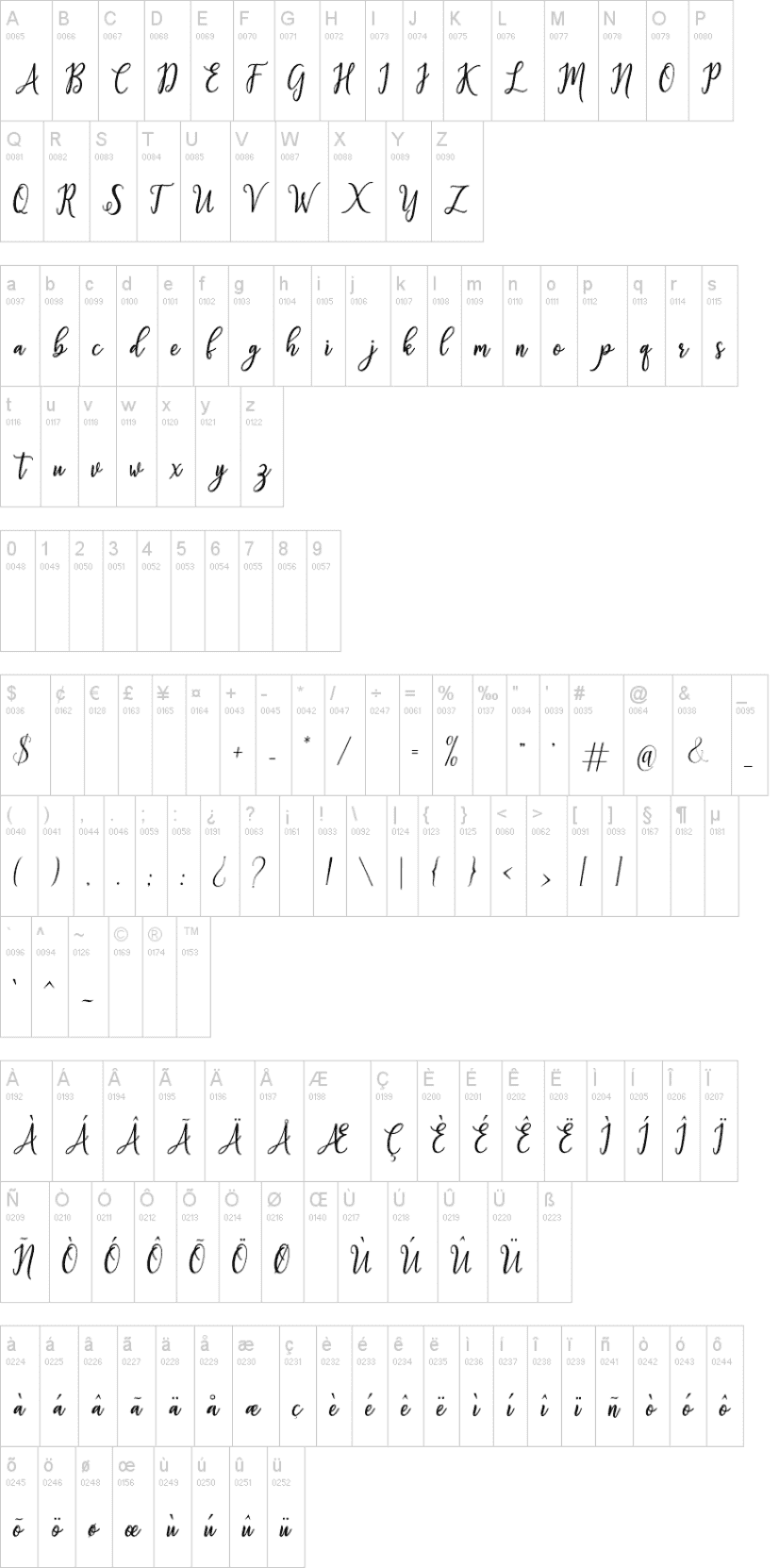
Fantastic script consist of more than 350 glyphs. Variants of the alternative characters were classified into a number of Open Type features like Swash, Stylistic Sets, Stylistic Alternates, Contextual Alternates. The Open Type features are available through Open Type savvy programs like Adobe Illustrator, Adobe InDesign, Adobe Photoshop Corel Draw X version, And Microsoft Word. And this Font has PUA unicode. Therefore, all the alternate characters are readily accessible in full for a craftsman or a designer.